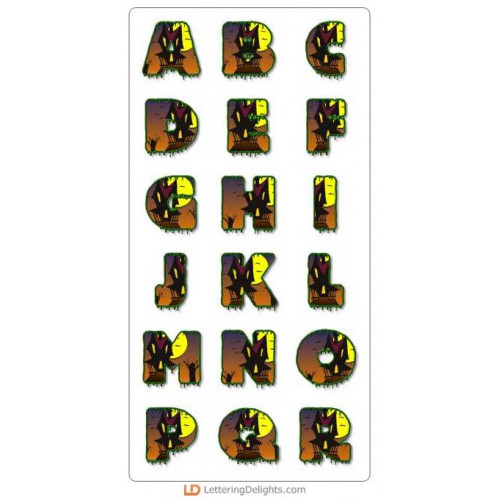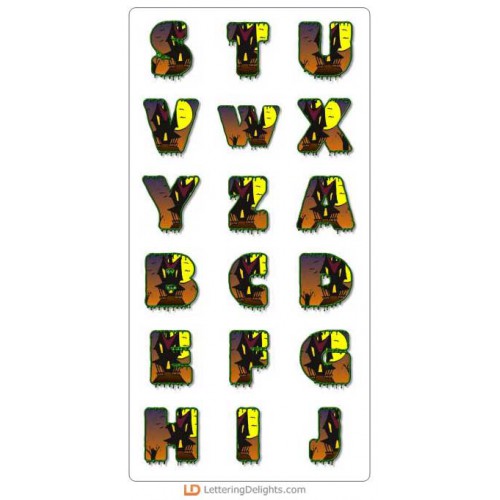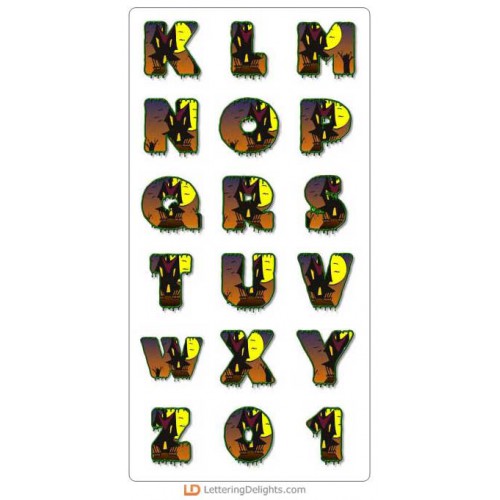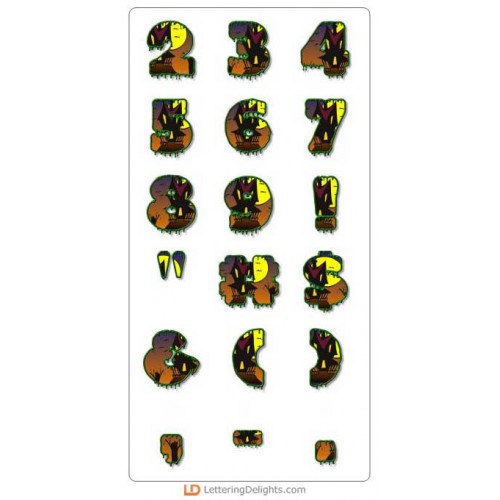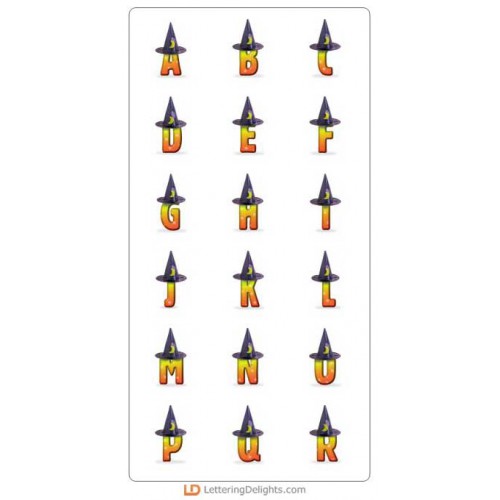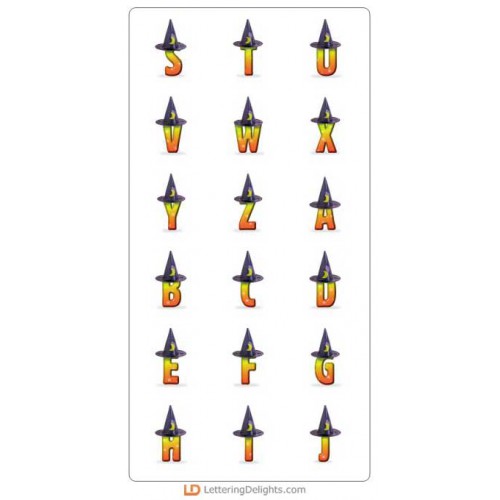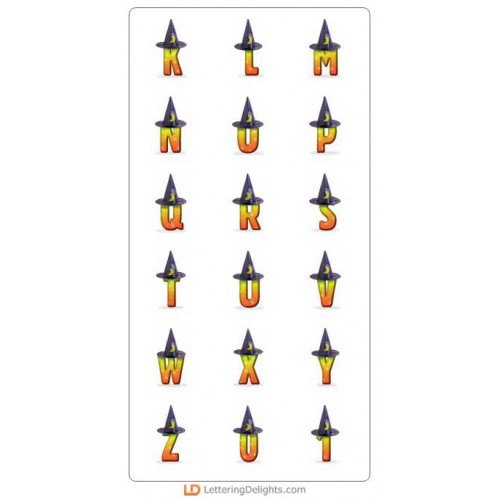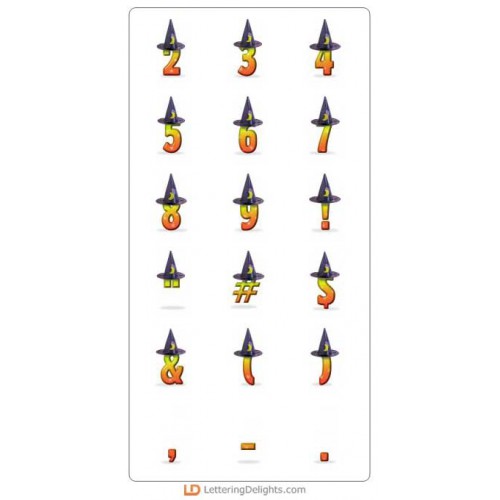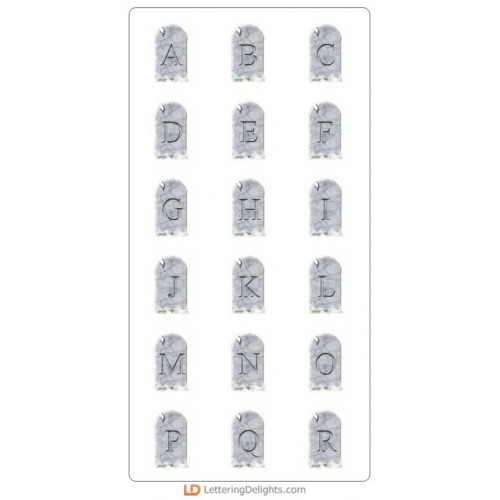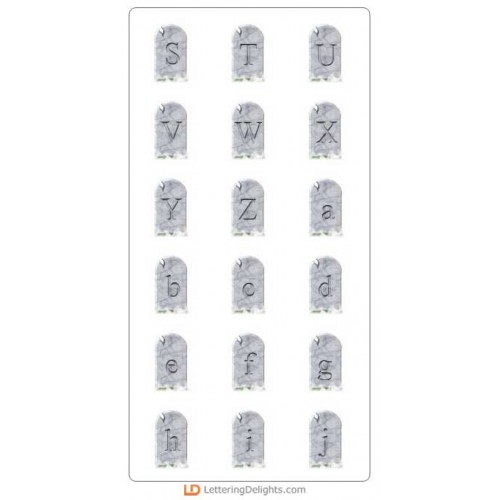
LD Spooktacular Bundle
Great new bundle that will get you all set for Halloween! Features a BRAND NEW alphabet-TRICK 'N' TREAT and a BRAND NEW font--LD SPIKED.